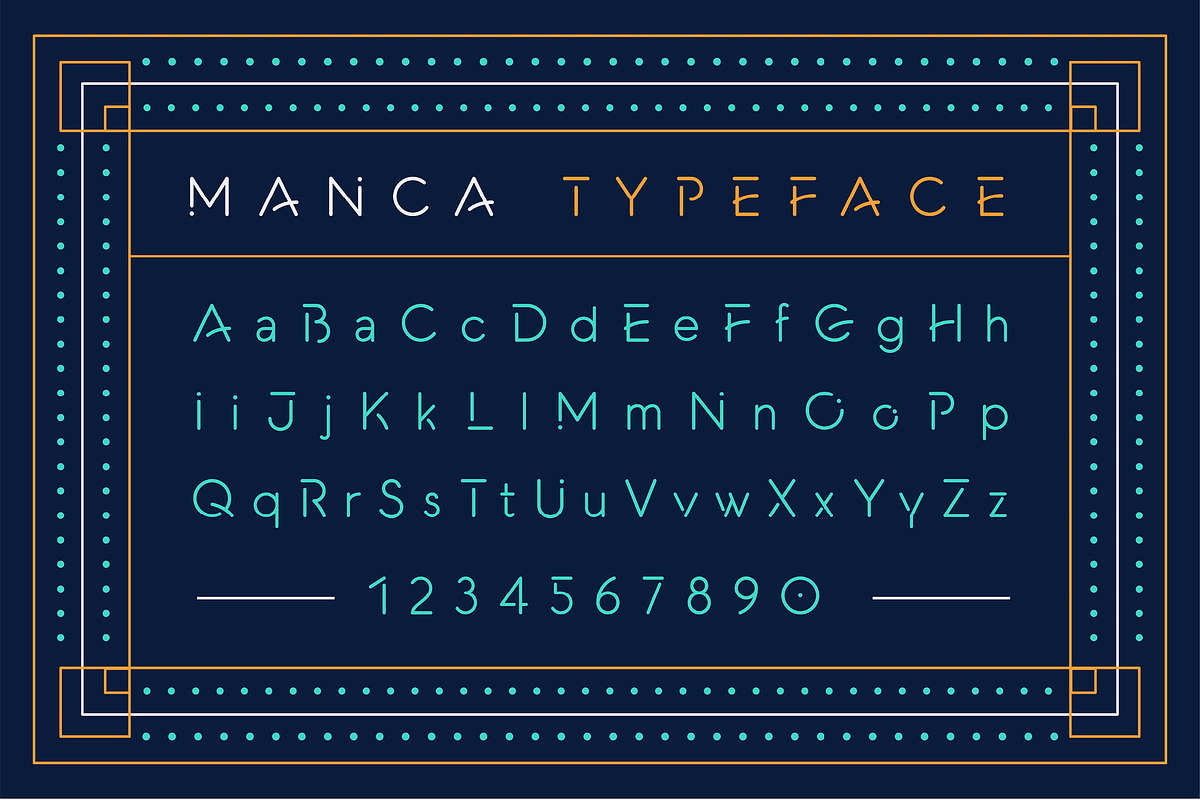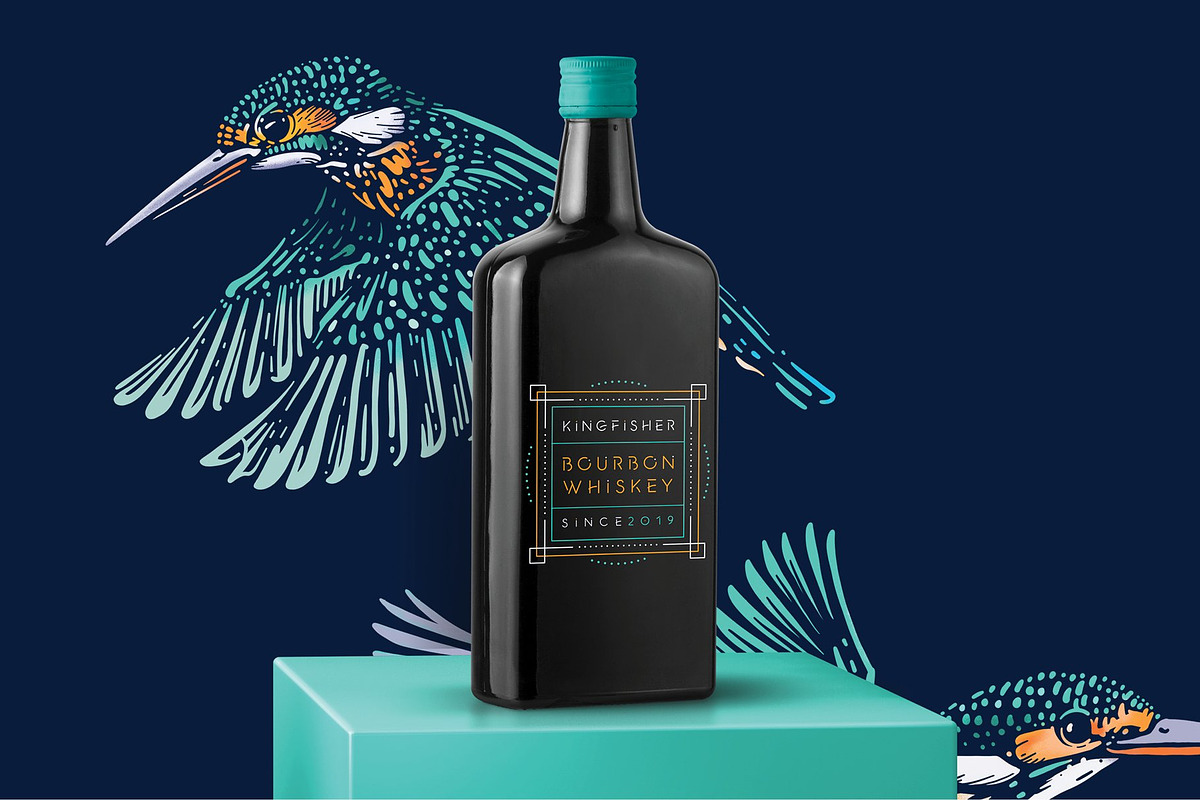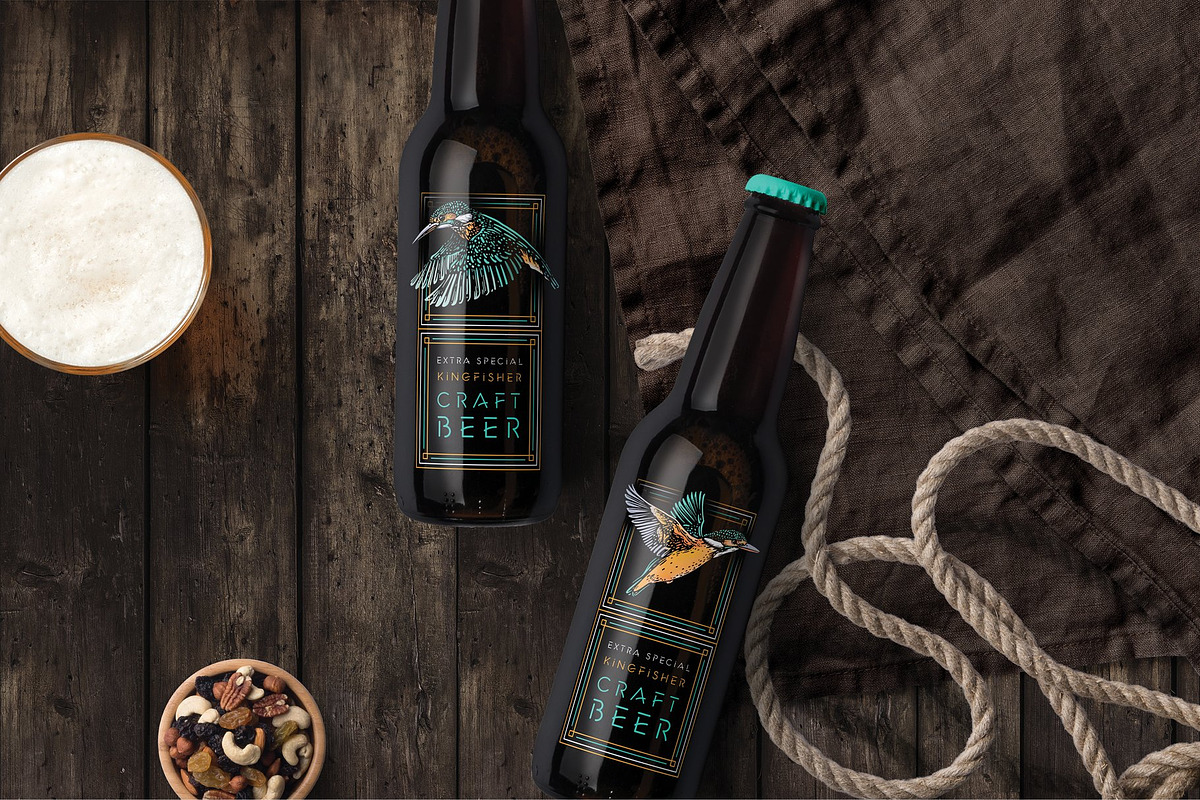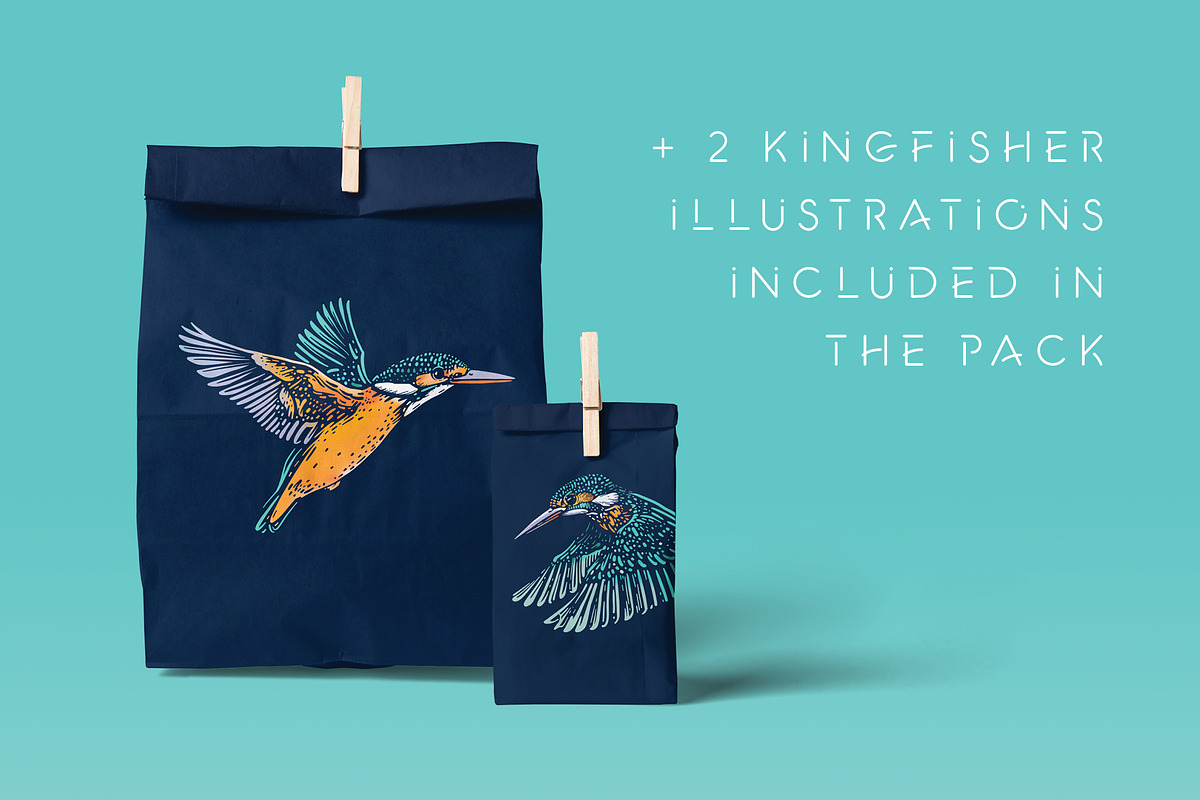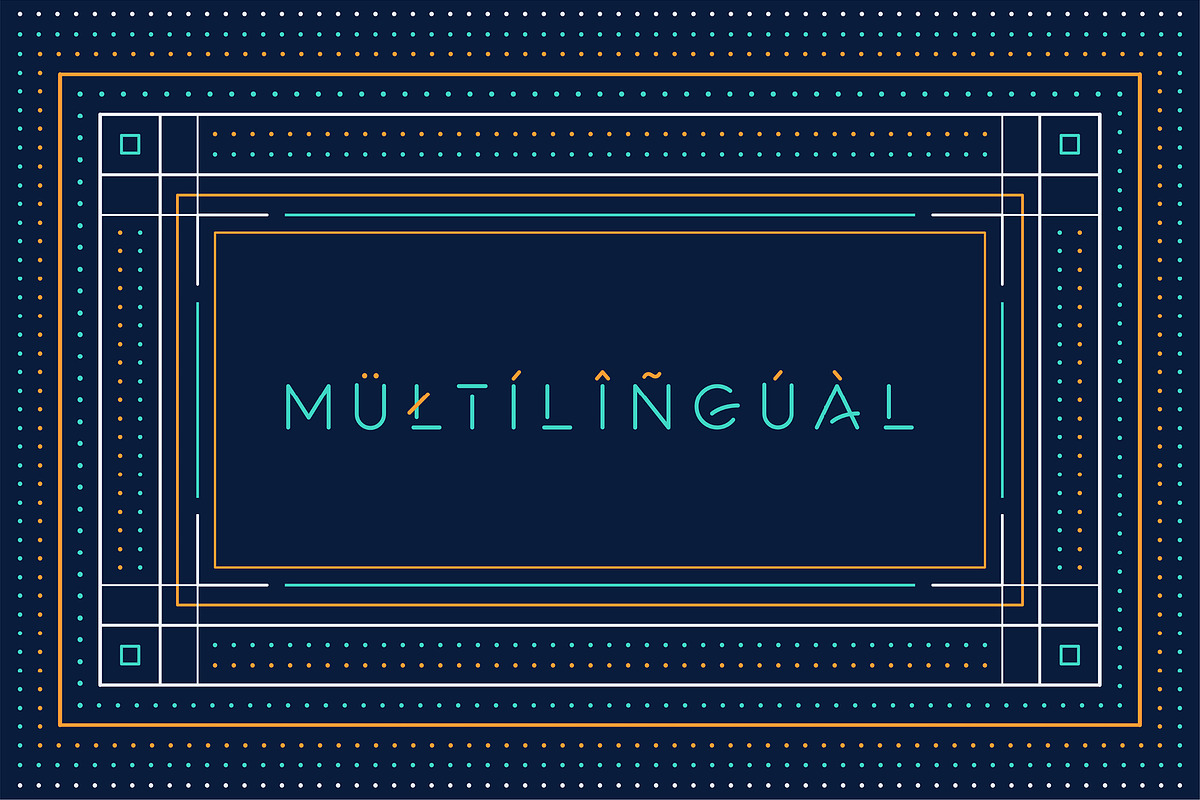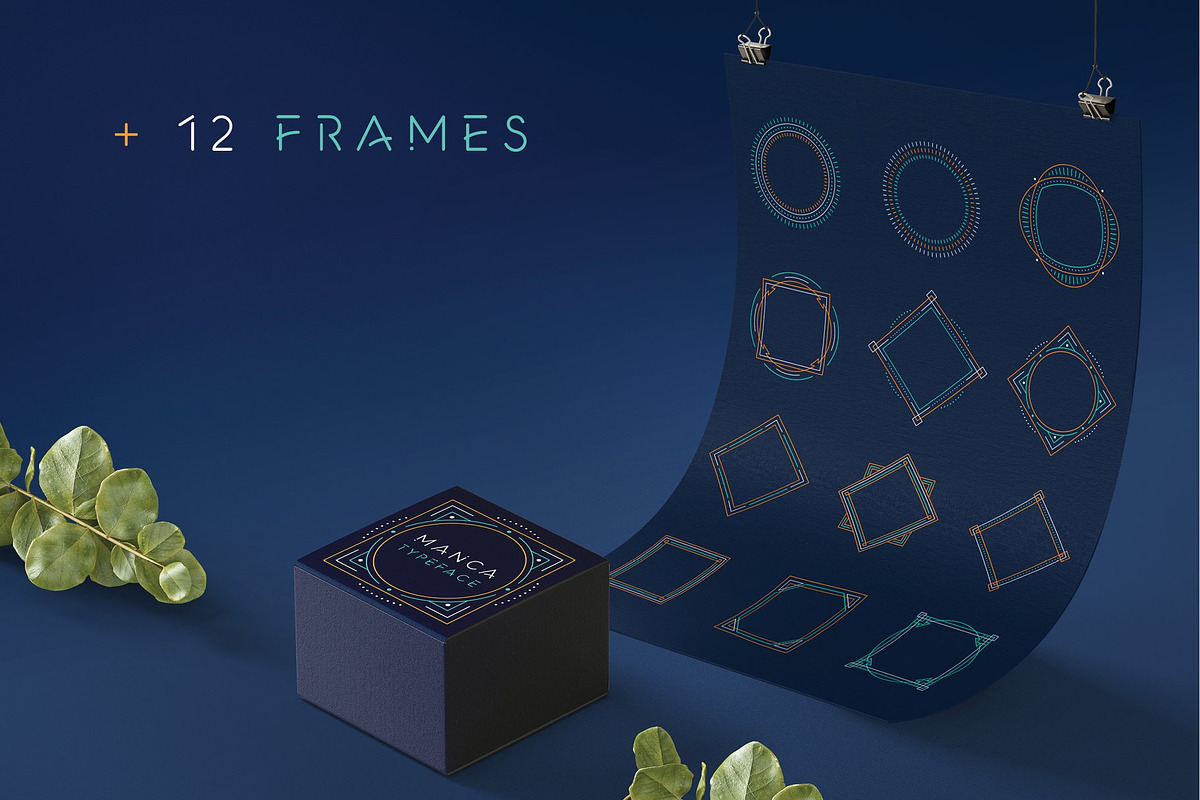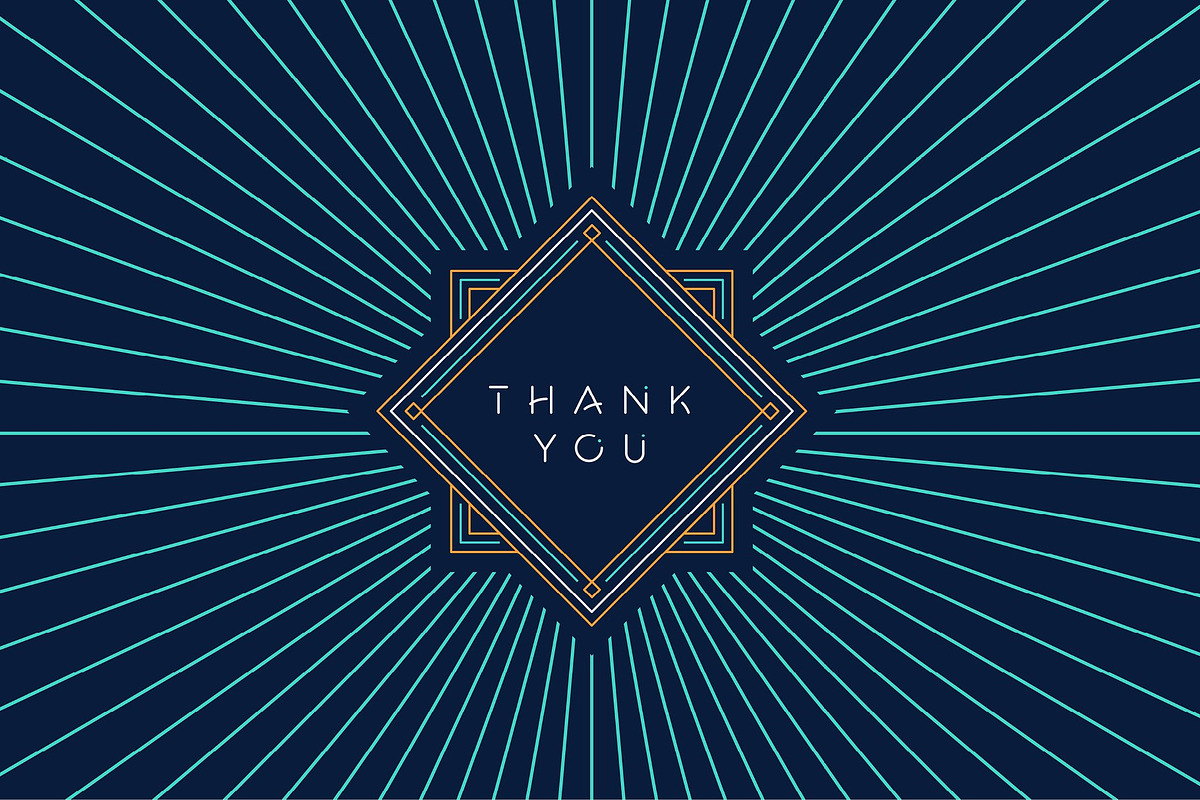
Manca Display Typeface + Extras
Manca is a modern display typeface. Suitable for headlines, branding, posters, etc. It includes 236 glyphs (uppercase, lowercase, punctuation, numbers, symbols, marks). Pack also includes vector frames and two raster illustrations of the kingfisher bird. Frames are delivered as Adobe Illustrator vector files and as high-resolution transparent PNG files in JPG. Illustration is avaliable in transparent PNG and JPG.
- It includes 236 glyphs (uppercase, lowercase, punctuation, numbers, symbols, marks).
- Manca Regular